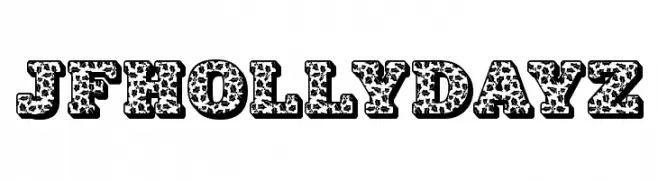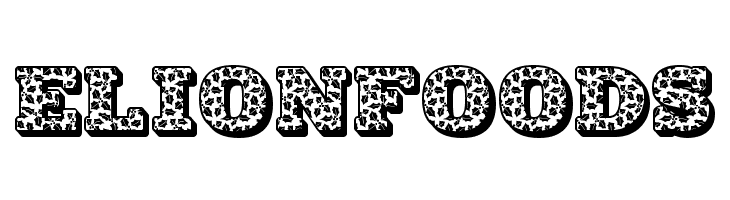
( Fonts by Jester Font Studio )
A bold, decorative font with intricate, festive patterns.
( Fonts by Jester Font Studio )
A bold, decorative font with a star-filled pattern, perfect for festive designs.
( Fonts by Jester Font Studio )
A bold, decorative font filled with festive holly and bow patterns.